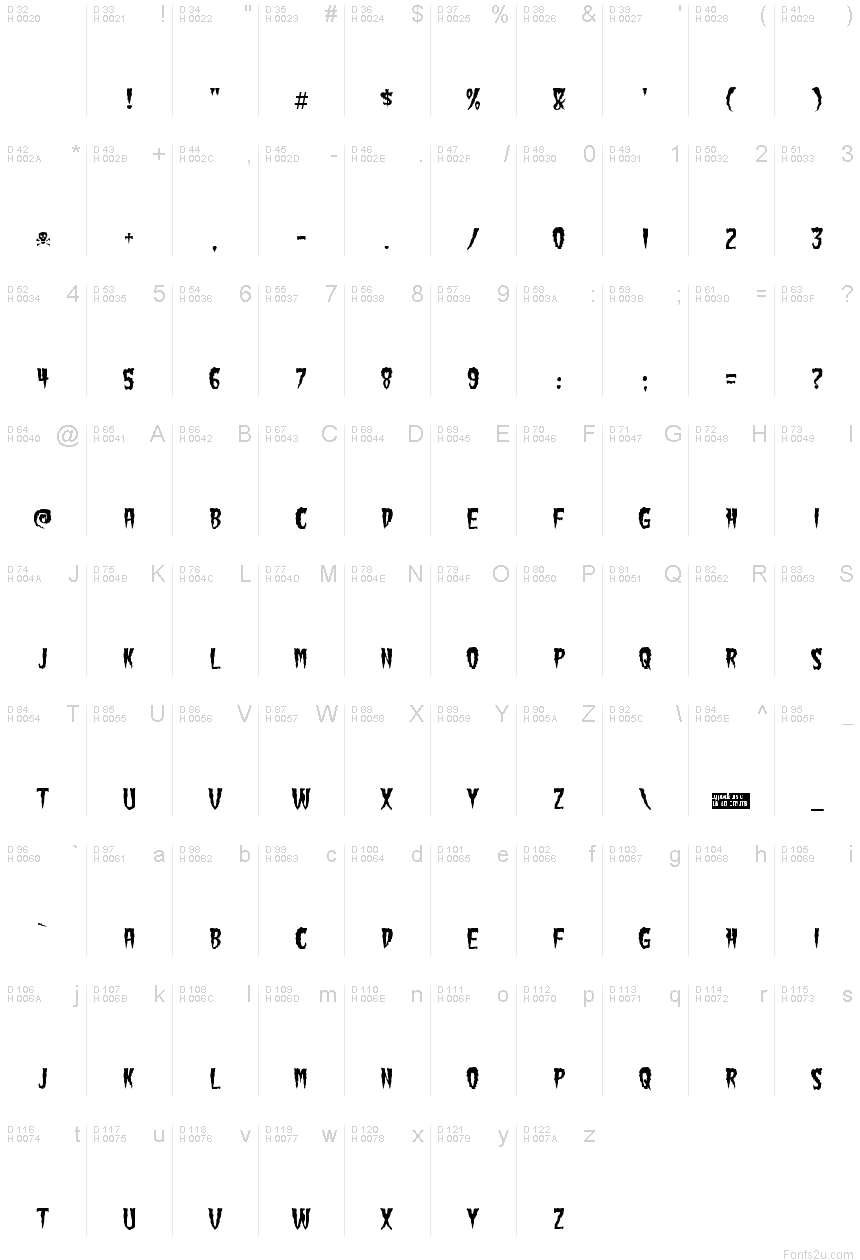
Green Fuz
Green Fuz font by Ray Larabie is a free distorted horror display typeface. Its blobby, dripping silhouettes look like ink that’s oozed down a cracked wall, with jagged contours that feel half-radioactive, half-b-movie slime. The letters lock together in a dense, uneven line that instantly sets a grimy, cult-horror mood without needing extra graphics.
Using Green Fuz, titles feel like they’ve crawled out of a grindhouse poster or a midnight monster flick. This free font shines on Halloween flyers, haunted house signage, horror podcast covers, spooky event branding, punk or psychobilly album art, and glitchy retro-game titles. Keep it big, bold, and short on words, and pair it with a plain sans serif for body copy so the slime-soaked lettering stays center stage.